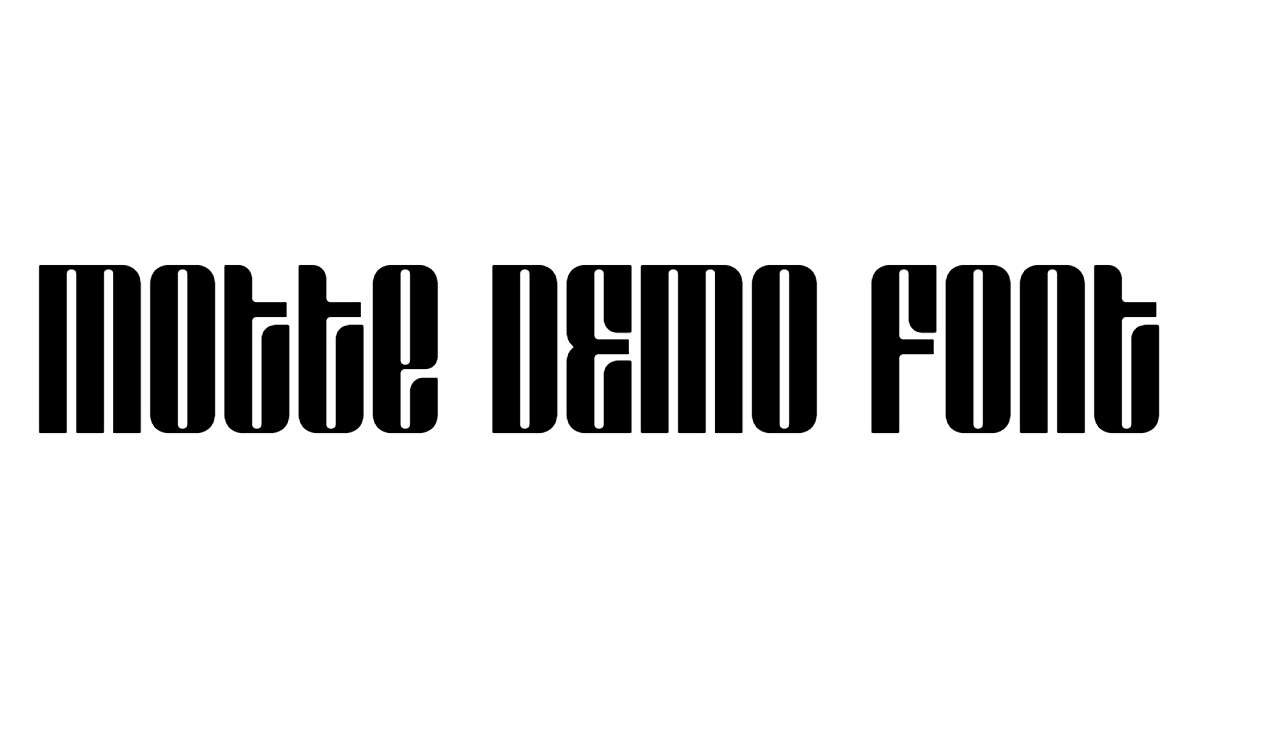
Motte DEMO Font
TypeClassHeroes, a digital type foundry, created and released Motte DEMO, a unique and contemporary Sans Serif display typeface. Geometric lettering, angular ends, and typographic ligatures comprise this font. The foundry particularly designed it to leave a strong impression in a narrow horizontal space, so creators widely use it in apparel design and streetwear.
Motte DEMO is a fancy font designed by Suandana Ipandemade. It's a decorative display font with plenty of personality, made to grab attention. It's a free download, and you can try it with your own text in the preview above first.
Motte DEMO covers the full alphabet in upper and lowercase, plus all ten numbers, so you can set names, dates and prices without switching fonts. Common punctuation such as &, !, ? and @ is included as well. It doesn't include accented letters such as é or ñ, which makes it an English-only font.
Think of Motte DEMO for posters, logos and eye-catching headlines. Use it for one standout word or headline and let simpler fonts handle the rest.